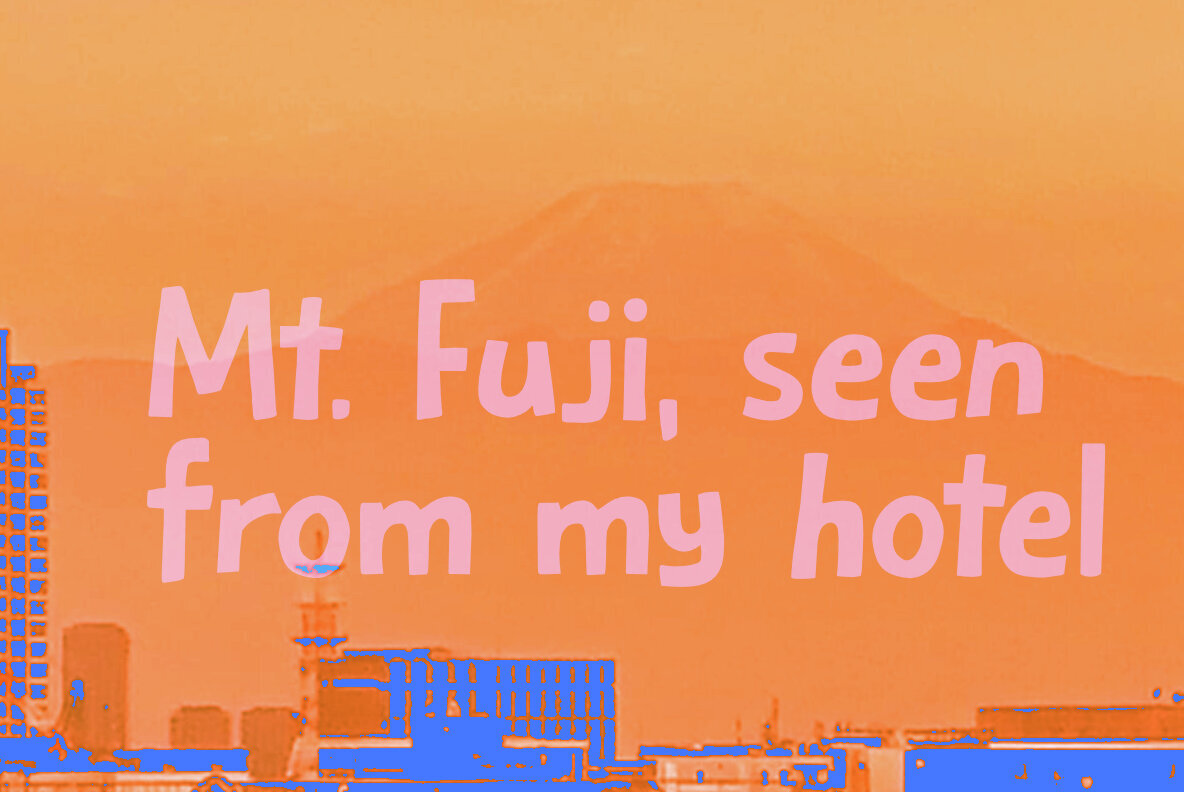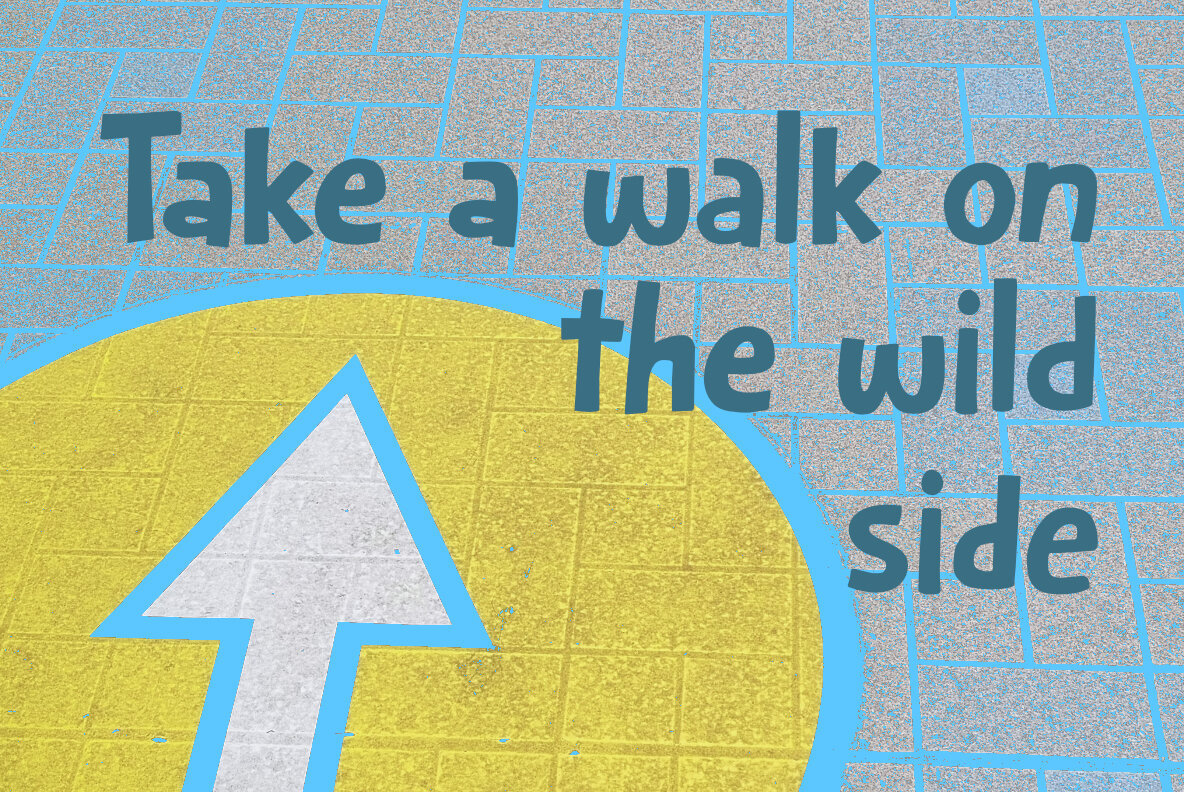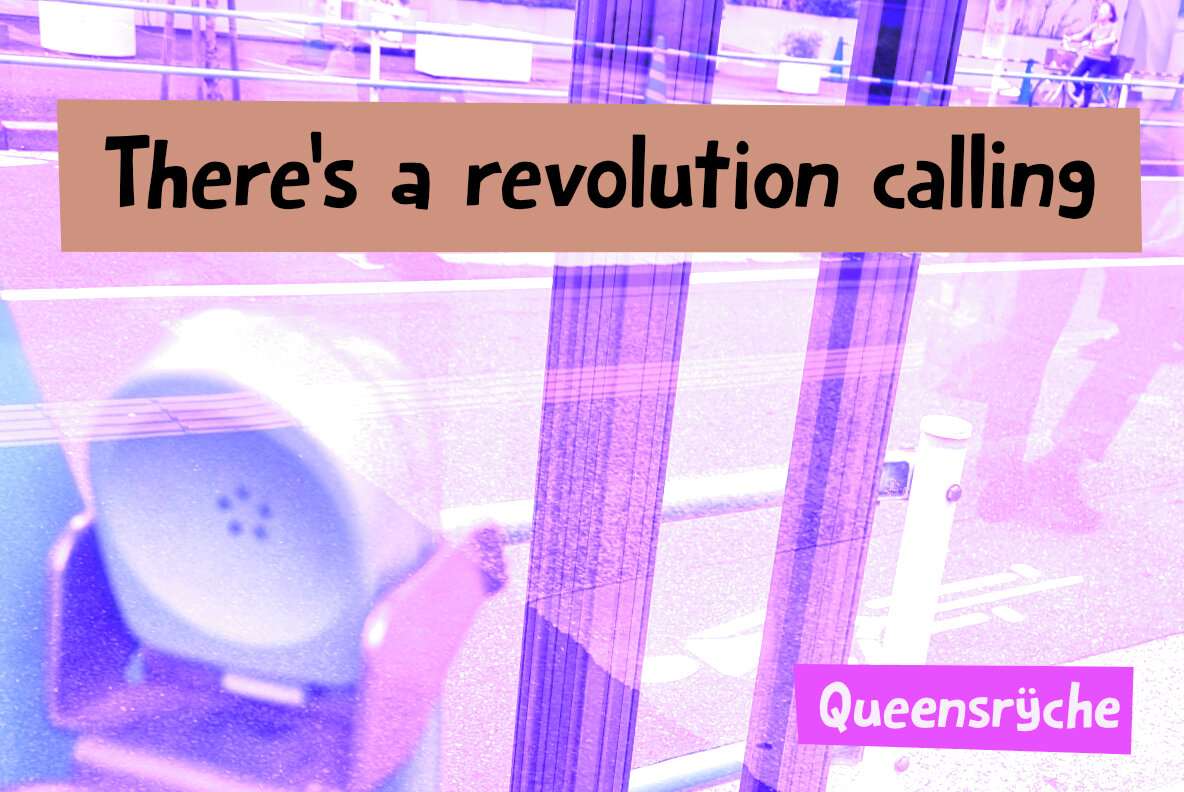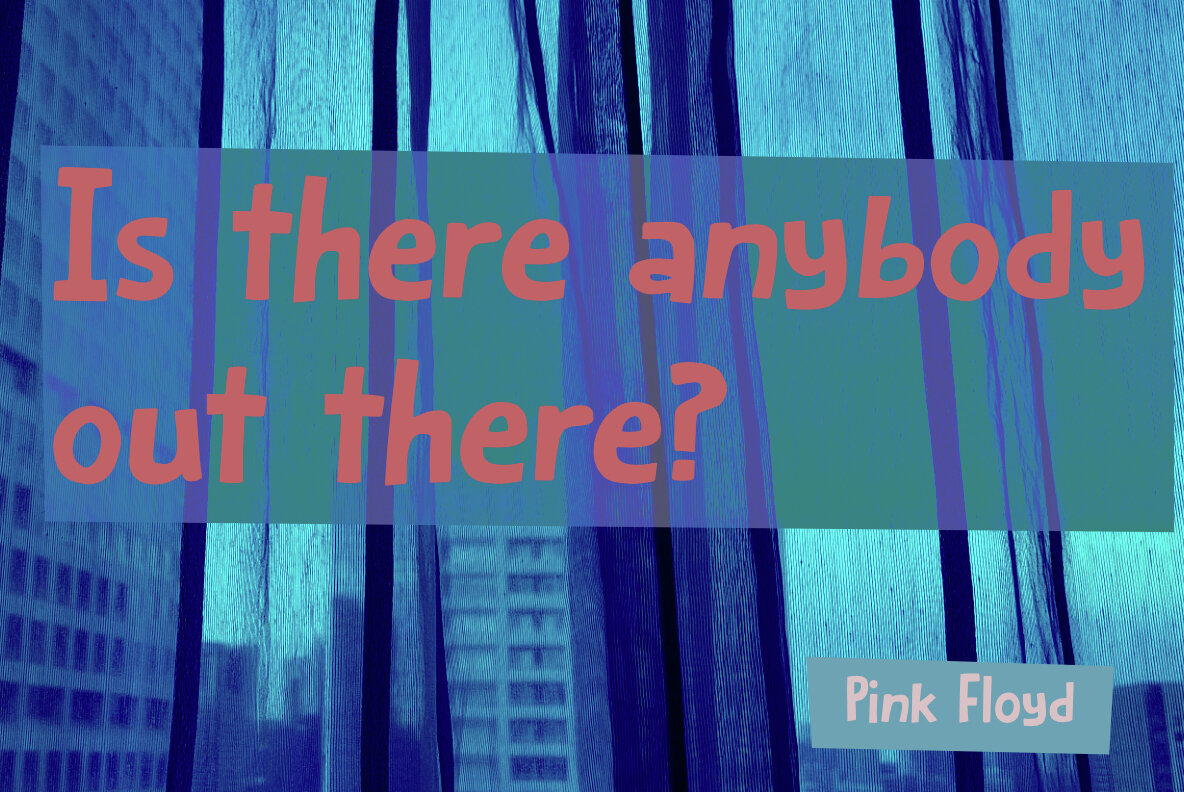
Indoor Survival Font
Indoor Survival is a fun and happy comic font I made while touring Japan. I used to be a tour guide for years, but when I became a father, I quit, because I didn’t want to be the ‘man who cuts the meat at xmas’. I really loved being a tour guide and now my kids have grown, I decided it was about time to do a few tours per annum. The first one happened to be a Japan tour! Indoor Survival was made with a convenience store pen and really thin Japanese paper. It kind of reminds me of the fonts I used to make back in the day. Indoor Survival comes with all the trimmings and a trove of language support.